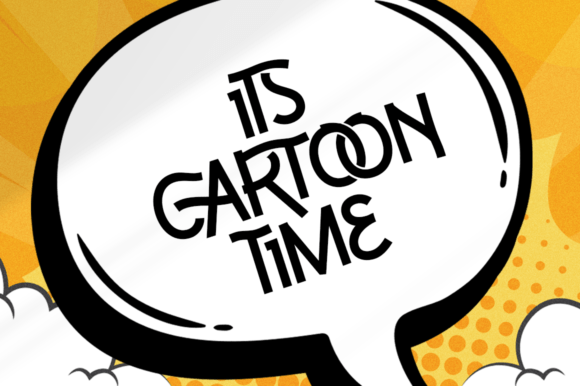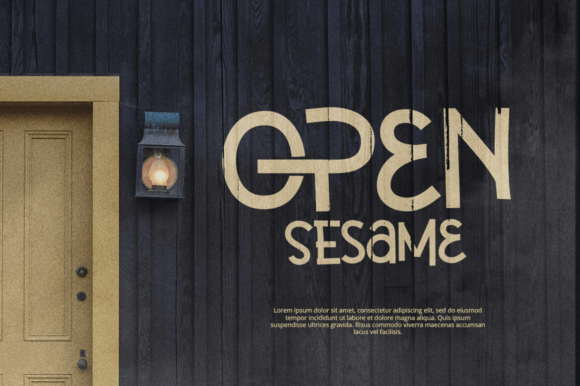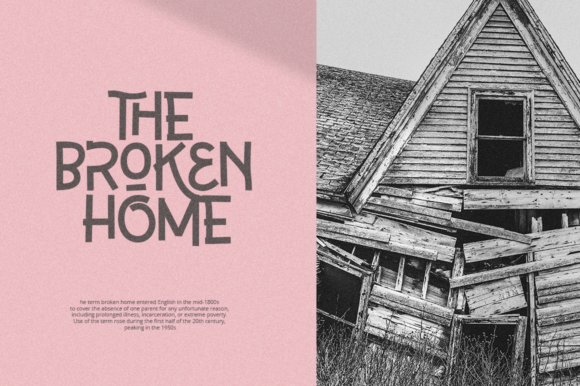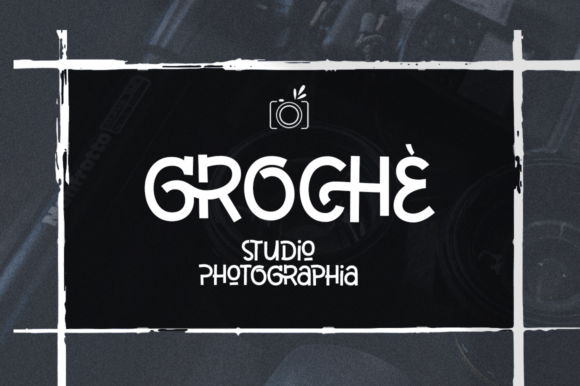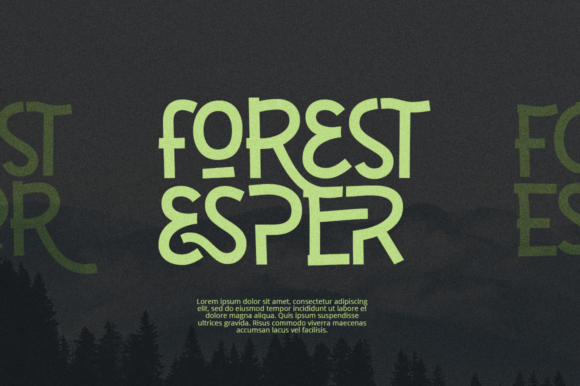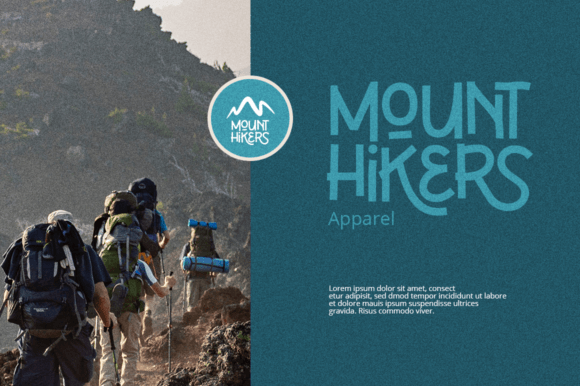
The Retro Charm of Grinko Font: A Designer’s Delight
I’ll never forget the time I was working on a vintage-themed project for a client, and I just couldn’t find the right font to capture that nostalgic feel. The client wanted something that screamed retro elegance, but with a casual twist. That’s when I stumbled upon Grinko Font, and it was love at first sight! 💕
Grinko is an elegant and casual retro decorative font that has become a staple in my design toolkit. Each uppercase and lowercase letter has its unique characteristics, plus some alternates and ligatures that make it truly special. In this article, I’ll share my honest review of Grinko Font, provide a practical guide on how to use it, and explore similar fonts that might tickle your fancy.
Honest Review: The Good and the Quirky
What I Love About Grinko Font ✨
- ✅ Elegant and casual retro vibe that’s perfect for a variety of design projects
- ✅ Unique characteristics in each uppercase and lowercase letter
- ✅ Includes alternates and ligatures for added creativity
- ✅ Bold and tight kerning that makes it easy to read
- ⚠️ Some letters might be a bit too ornate for very small font sizes
- ⚠️ Limited use for body text due to its decorative nature
The Story Behind Grinko Font
Grinko Font was designed by a talented type designer who drew inspiration from vintage typography and classic scripts. The goal was to create a font that exudes elegance and sophistication, while still feeling approachable and casual. The result is a beautiful, unique font that’s perfect for a variety of design projects.
| Font Name | Grinko Font |
| Author | Grontype |
Q: What type of projects is Grinko Font best suited for?
A: Grinko Font is perfect for design projects that require a touch of elegance and whimsy, such as logo taglines, logotypes, name cards, flyers, invitations, and magazine headers.
Q: Can I use Grinko Font for body text?
A: While Grinko Font is a beautiful font, it’s not ideal for body text due to its decorative nature. It’s best used for headlines, titles, or short paragraphs.
Q: Does Grinko Font include any special features?
A: Yes, Grinko Font includes alternates and ligatures that can add personality to your text. You can access these features in compatible design software, such as Adobe Photoshop or Illustrator.
Q: Is Grinko Font suitable for digital use?
A: Absolutely! Grinko Font is designed to look great on both digital and print platforms. Feel free to use it for website headers, social media graphics, or any other digital project.